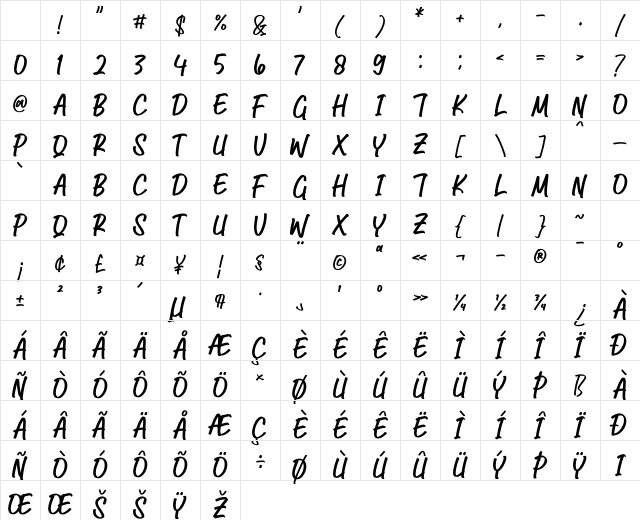
Complete Blue Marker Regular glyph index. Displaying only characters natively supported by Blue Marker Regular font.
Blue Marker is a composed and adaptable typeface that performs quietly and consistently across a wide range of design contexts.
Who designed the Blue Marker Regular font?